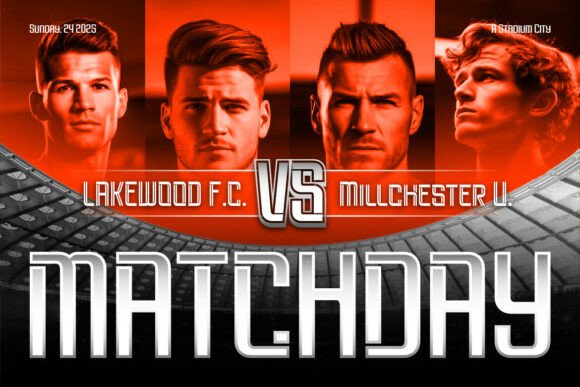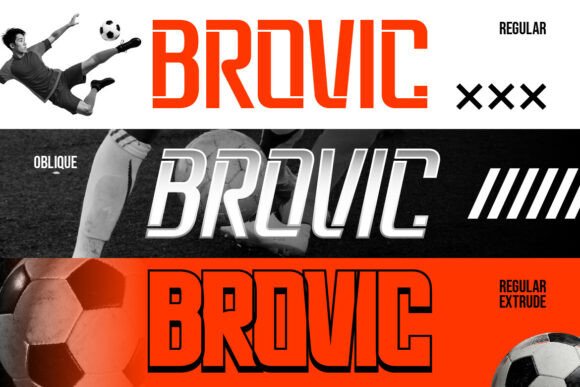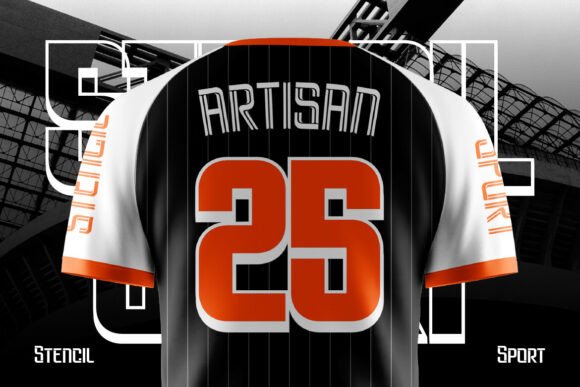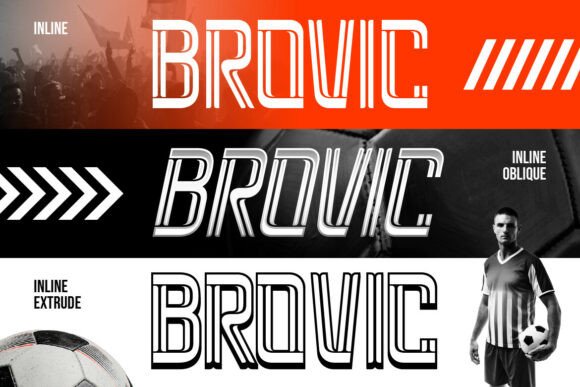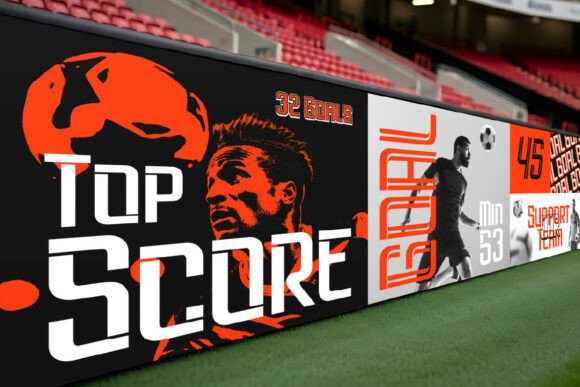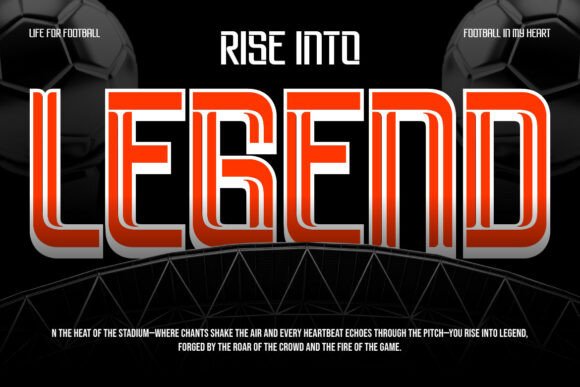
Meet Brovic: The Ultimate Font for Bold Designs and High-Octane Graphics
In the world of design, fonts play a crucial role in conveying the message and tone of a project. For designers and crafters looking to make a statement, a font that exudes confidence, energy, and modernity is essential. Introducing Brovic, a font specifically built for big moments and bold plays. Inspired by the fast-paced aesthetic of football, Brovic brings a unique blend of sharp lines, bold cuts, and a modern stencil style to your designs.
The Inspiration Behind Brovic
Brovic’s design is deeply rooted in the high-energy world of sports, particularly football. The font’s creator aimed to capture the intensity and dynamism of the game, translating it into a versatile typeface that can be used across various design projects. From jersey numbers to stadium banners, team posters to esports branding, Brovic is designed to deliver a strong visual impact.
Key Features of Brovic
So, what makes Brovic stand out from other fonts? Here are some of its key features:
- Sharp Lines and Bold Cuts: Brovic’s sharp lines and bold cuts give it a modern and edgy feel, perfect for designs that require a strong presence.
- Modern Stencil Style: The font’s stencil style adds a touch of industrial chic, making it ideal for sports-related designs, tech branding, and futuristic graphics.
- Multiple Styles: Brovic comes in a range of styles, including Regular, Oblique, Inline, Extrude, and more. This versatility allows designers to experiment with different looks and feels, ensuring the perfect fit for their project.
Exploring Brovic’s Styles
One of the most exciting aspects of Brovic is its extensive range of styles. Whether you’re looking for a font that’s loud and attention-grabbing or sleek and sophisticated, Brovic has got you covered.
- Regular and Oblique: These styles offer a clean and modern look, perfect for body text, headings, and titles.
- Inline: For a sleeker, more refined look, the Inline style is an excellent choice. It’s ideal for designs where you want to convey a sense of sophistication and elegance.
- Extrude: If you want to make a bold statement, the Extrude style is the way to go. With its 3D-like effect, it’s perfect for designs that require a high level of visual impact, such as stadium banners, billboards, and eye-catching graphics.
Mix and Match for Maximum Impact
One of the unique strengths of Brovic is its flexibility. The font’s various styles can be mixed and matched to create visually stunning combinations. For example, you could pair the Extrude style with the Inline style for a bold and sophisticated look or combine the Regular style with the Oblique style for a dynamic and modern feel. The possibilities are endless, and the results are always striking.
Who Can Benefit from Brovic?
Brovic is an excellent choice for a wide range of designers and crafters, including:
- Sports Graphic Designers: For those working on jerseys, stadium banners, team posters, and other sports-related designs, Brovic is an ideal choice.
- Esports Branding Experts: With its modern and bold aesthetic, Brovic is perfect for esports branding, including team logos, jerseys, and marketing materials.
- Futuristic Graphic Designers: If you’re working on designs that require a futuristic or high-tech look, Brovic’s stencil style and bold cuts make it an excellent fit.
| Font Name | Brovic Font |
| Author | Burntilldead |
In conclusion, Brovic is a game-changing font that’s specifically designed for big moments and bold plays. With its sharp lines, bold cuts, and modern stencil style, it’s the perfect choice for designers and crafters looking to make a statement. Whether you’re working on sports-related designs, esports branding, or futuristic graphics, Brovic’s versatility and range of styles ensure that you’ll find the perfect fit for your project. So, why settle for ordinary fonts when you can make a bold statement with Brovic?